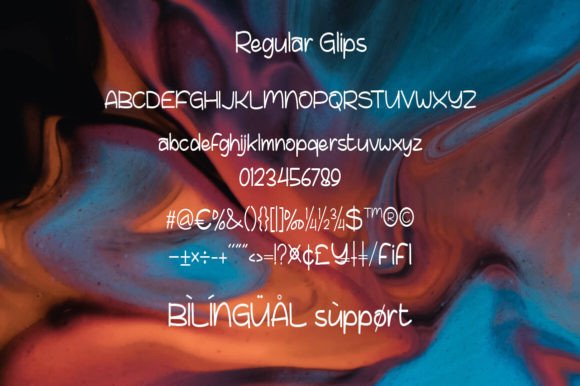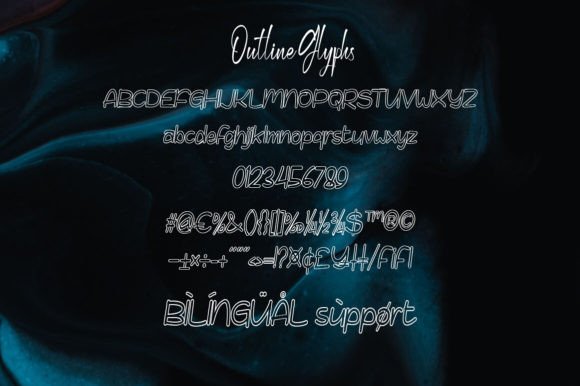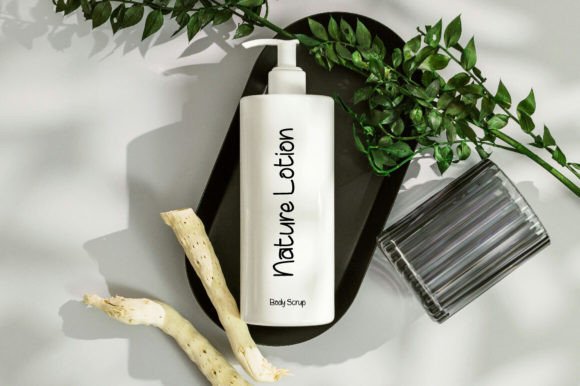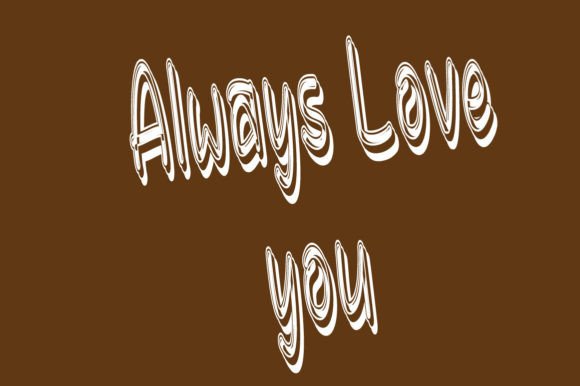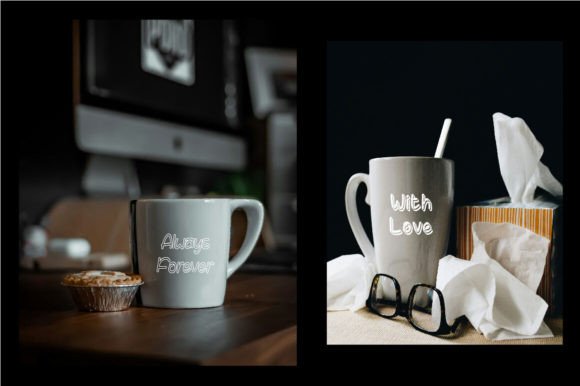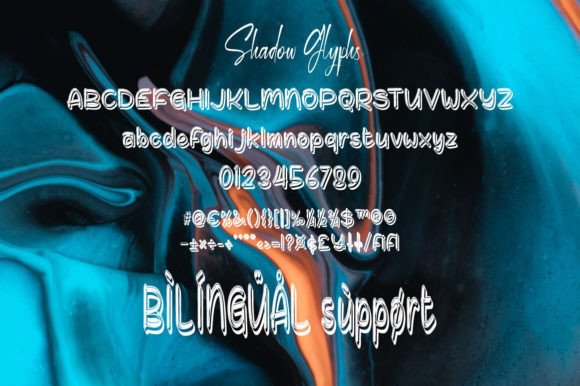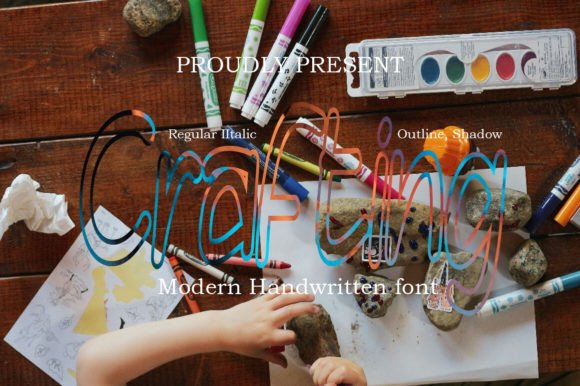
Crafting Font: The Sweet and Versatile Handwritten Sans for Designers and Crafters
Are you a designer or crafter looking for a font that can add a personal touch to your projects? Look no further than Craftig font, a sweet and versatile handwritten sans that is loaded with features! In this article, we’ll introduce you to Craftig font and provide tips on the countless ways you can use this cutie to elevate your designs.
What is Craftig Font?
Craftig font is a modern handwritten sans font that is designed to be both sweet and versatile. Its unique charm and character make it perfect for a wide range of projects, from crafting and DIY tutorials to branding and marketing materials. With its clean and simple design, Craftig font is easy to read and can be used in a variety of contexts, from digital to print.
Features of Craftig Font
Craftig font is more than just a pretty face – it’s also loaded with features that make it a valuable addition to any designer’s or crafter’s toolkit. Some of its key features include:
- Handwritten sans design: Craftig font has a unique, handwritten sans design that gives it a personal and approachable feel.
- Clean and simple: Despite its decorative nature, Craftig font is clean and simple, making it easy to read and use in a variety of contexts.
- Versatile: Craftig font can be used for a wide range of projects, from crafting and DIY tutorials to branding and marketing materials.
- Loaded with features: Craftig font comes with a range of features, including multiple font weights, styles, and ligatures.
Tips for Using Craftig Font
So, how can you use Craftig font in your designs? Here are a few tips to get you started:
1. Use Craftig Font for Crafting and DIY Tutorials
Craftig font is perfect for crafting and DIY tutorials, where its sweet and approachable design can help to make complex instructions feel more friendly and accessible. Try using Craftig font to create titles, headings, and body text for your tutorials, and watch as it adds a personal touch to your content.
2. Add a Personal Touch to Your Branding and Marketing Materials
Craftig font is also a great choice for branding and marketing materials, where its unique charm and character can help to set your brand apart from the competition. Try using Craftig font to create custom logos, business cards, and social media graphics that showcase your brand’s personality.
3. Create Beautiful Quotes and Graphics
Craftig font is a great choice for creating beautiful quotes and graphics, where its clean and simple design can help to make complex text feel more elegant and refined. Try using Craftig font to create inspirational quotes, motivational posters, and other types of graphics that showcase your creativity.
4. Use Craftig Font for Web Design
Craftig font is also a great choice for web design, where its clean and simple design can help to create a user-friendly and accessible online experience. Try using Craftig font to create custom web fonts, headings, and body text that add a personal touch to your website.
In conclusion, Craftig font is a sweet and versatile handwritten sans that is loaded with features and perfect for designers and crafters. With its unique charm and character, clean and simple design, and range of features, Craftig font is a valuable addition to any designer’s or crafter’s toolkit. Whether you’re creating crafting and DIY tutorials, branding and marketing materials, quotes and graphics, or web designs, Craftig font is a great choice for adding a personal touch to your projects.